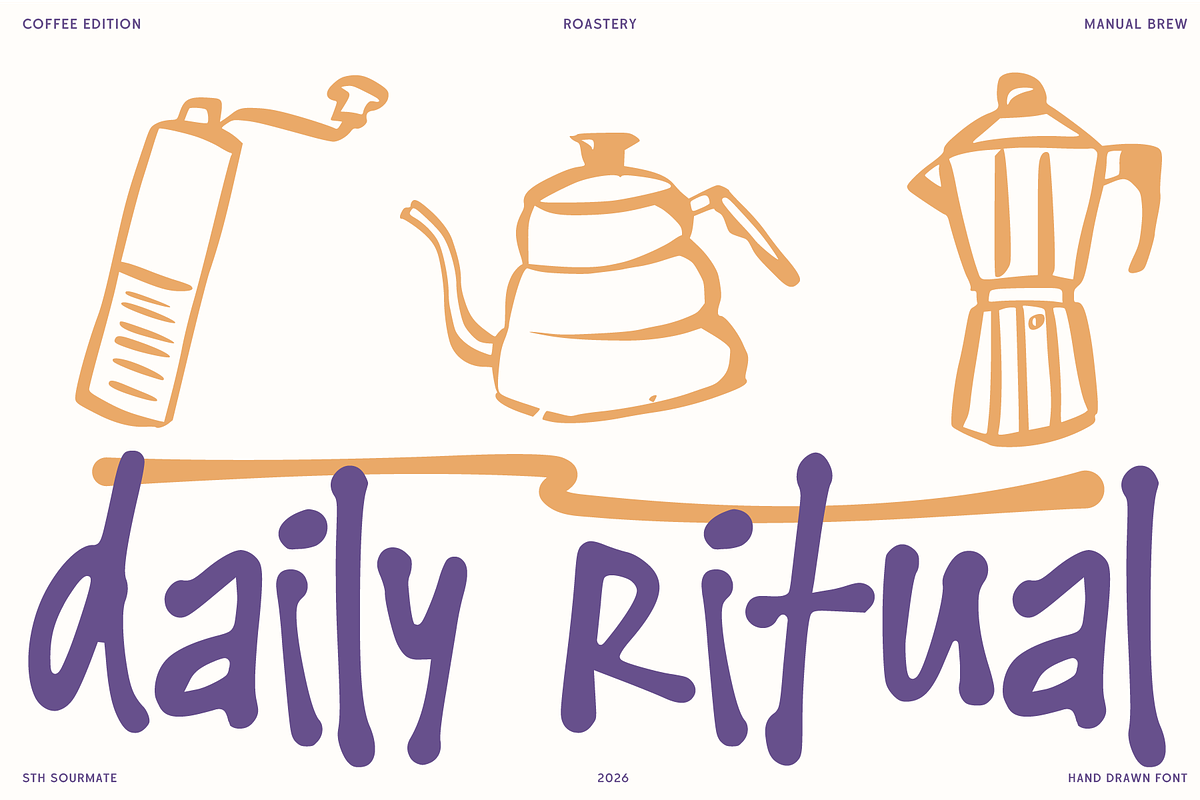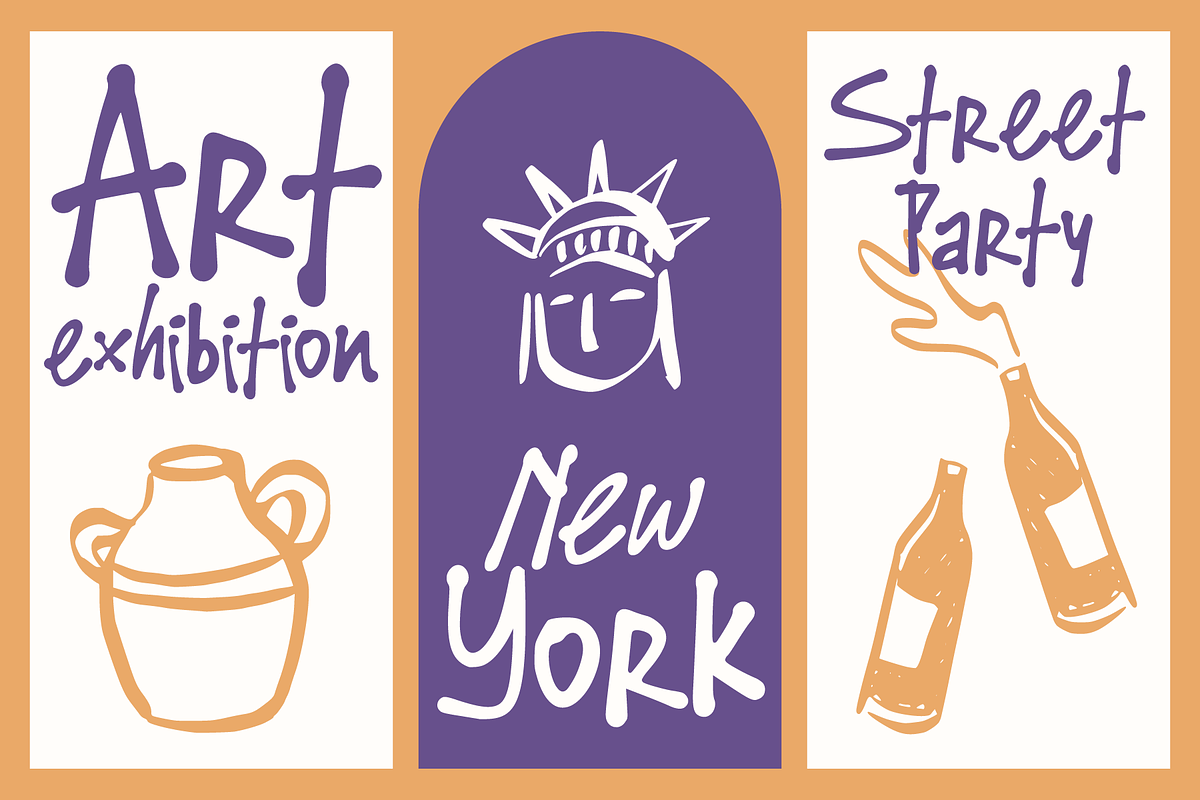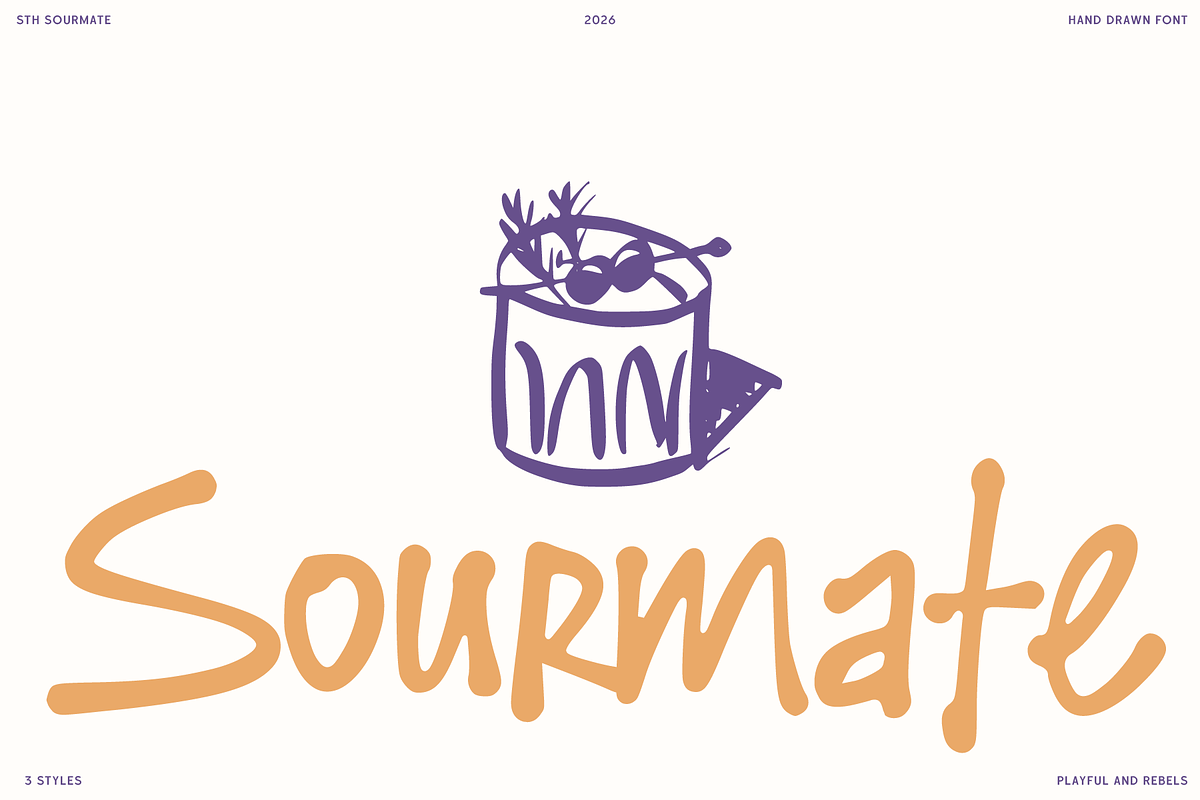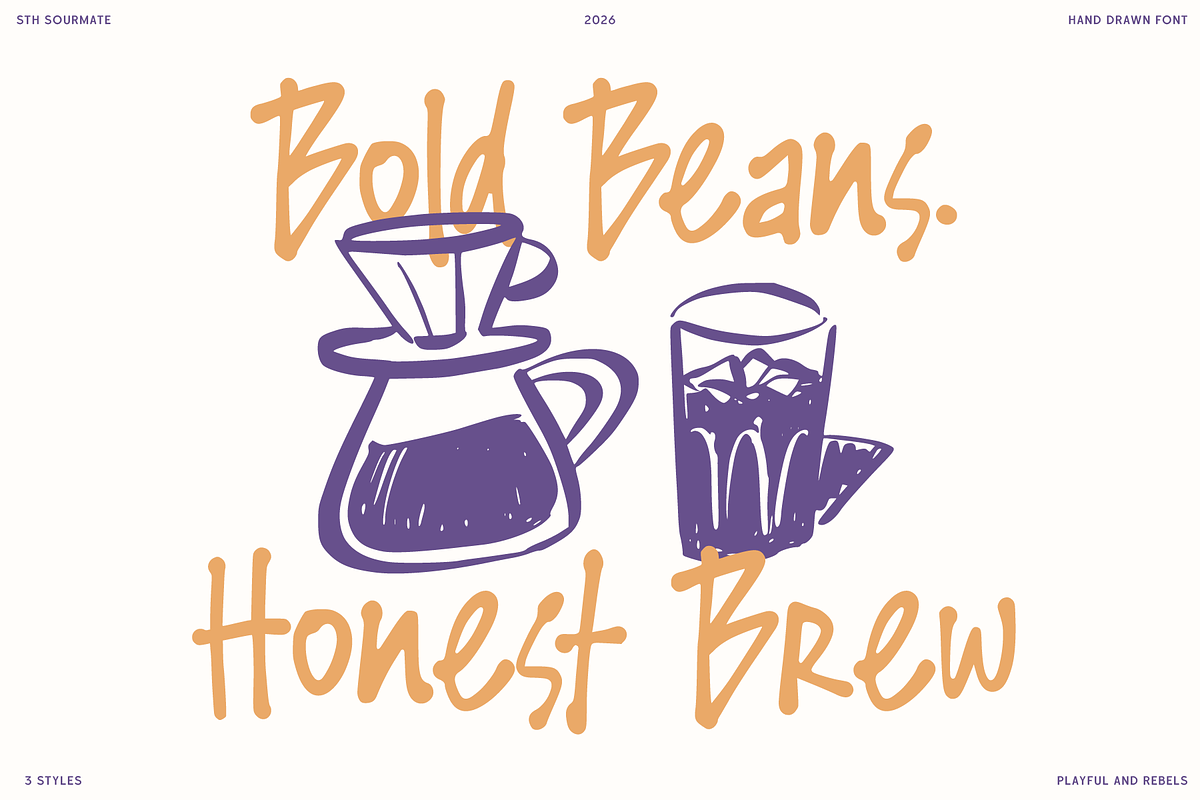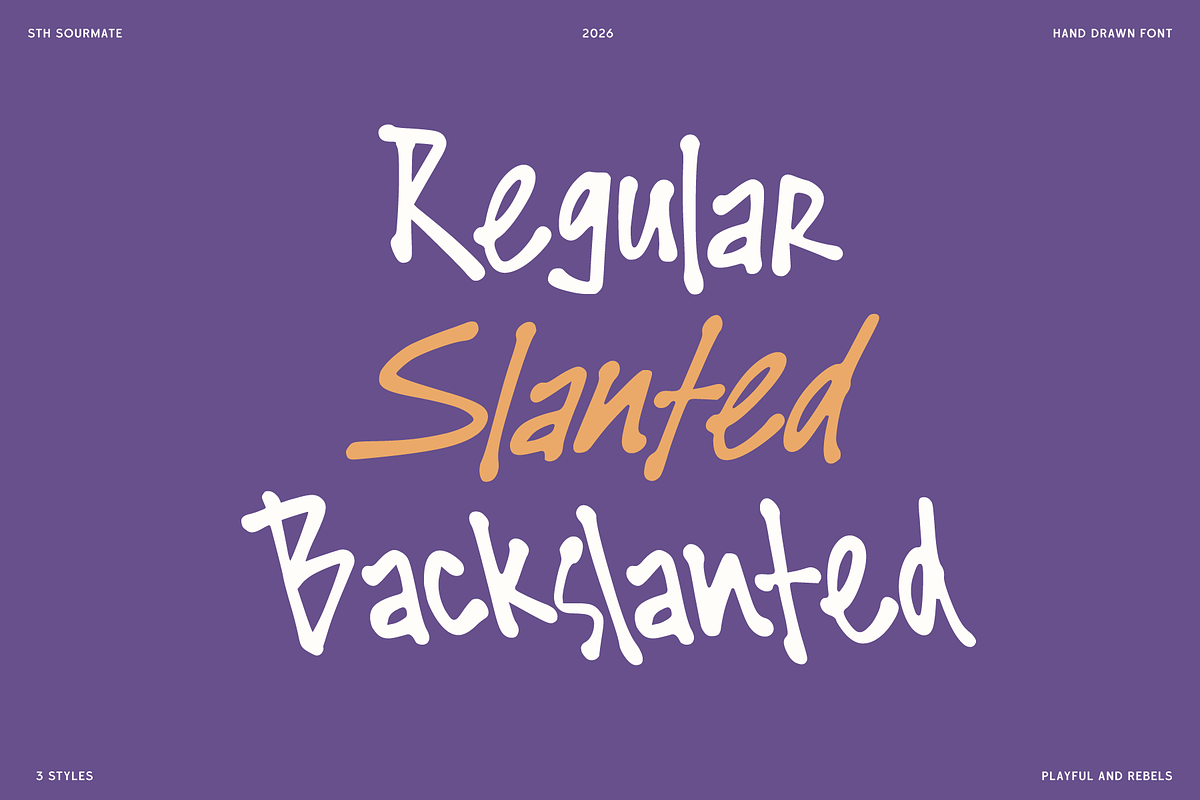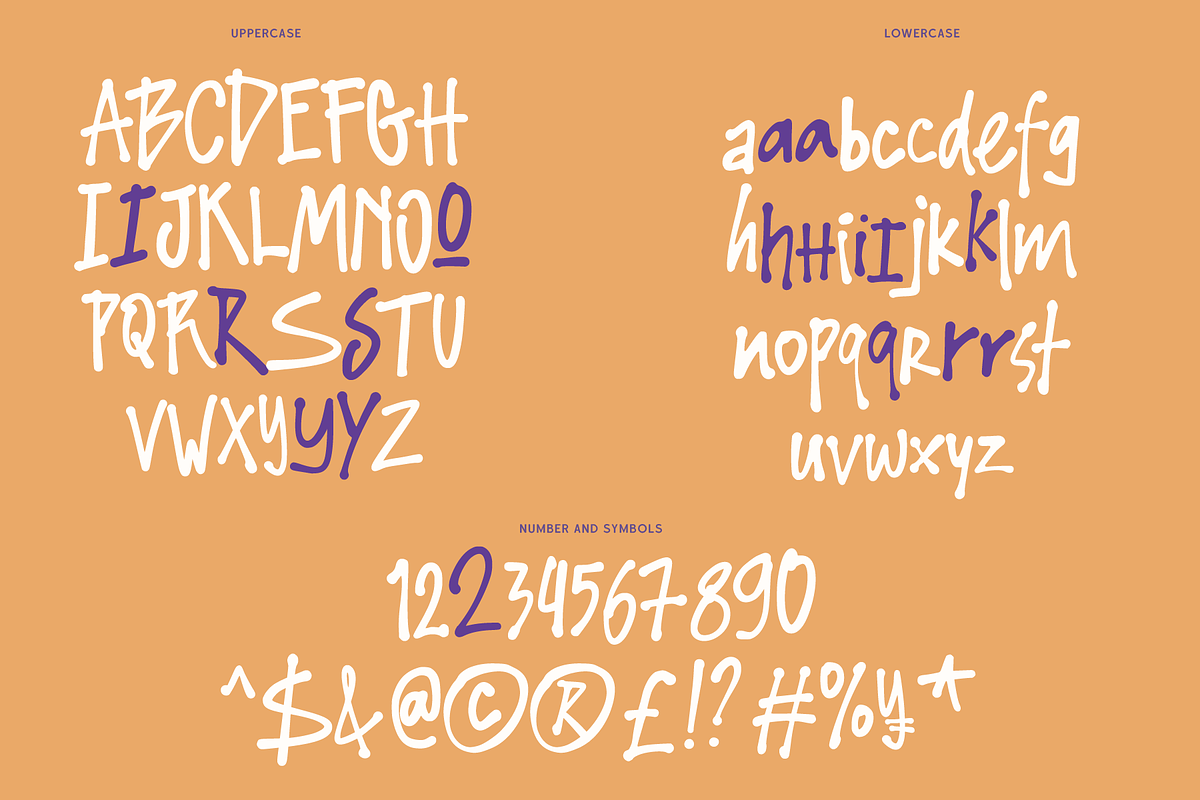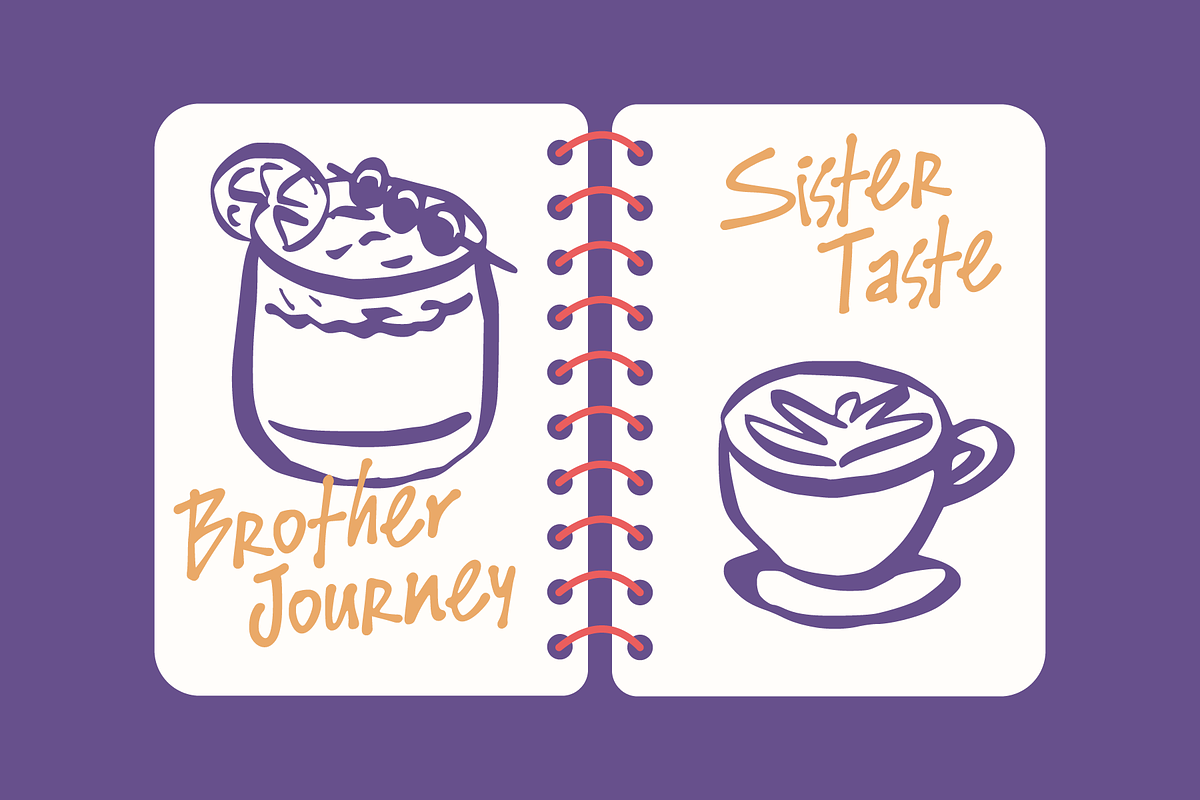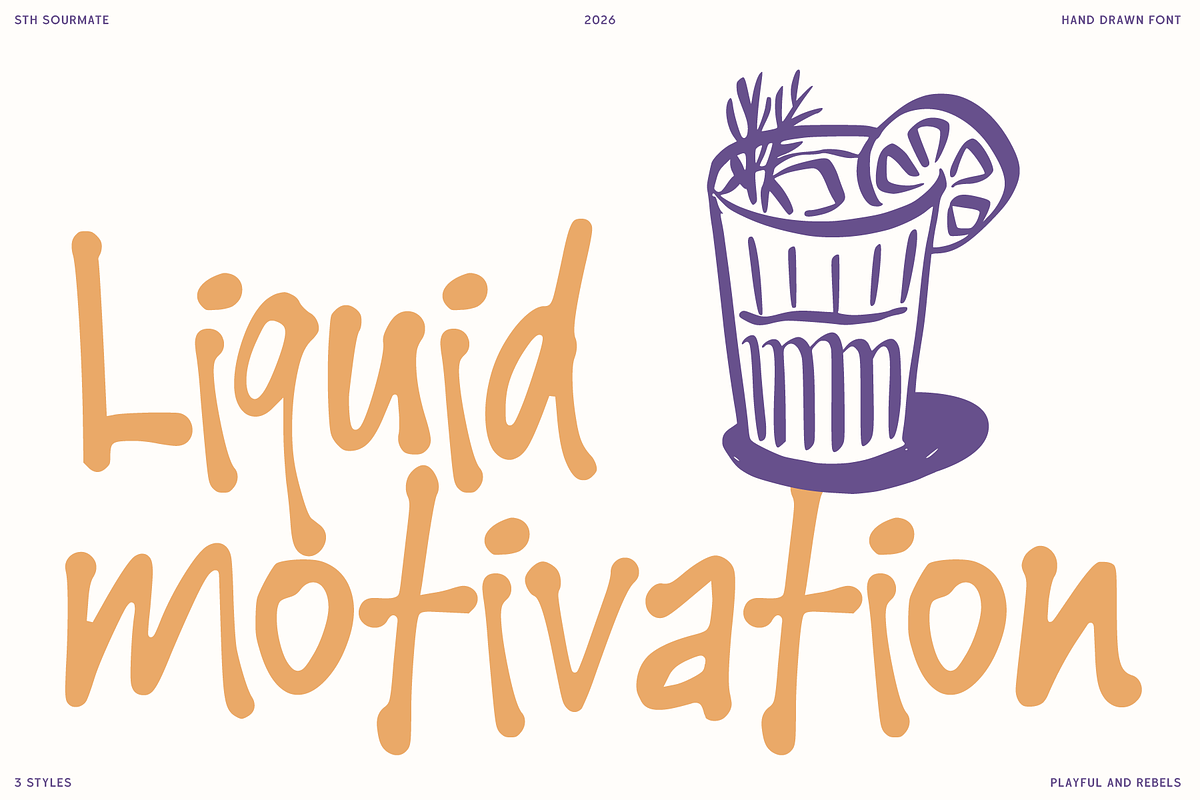
STH Sourmate
STH Sourmate is a playful hand-drawn font with a bold, expressive personality. Inspired by casual sketches and friendly food illustrations. This font brings a warm, fun, and slightly rebellious vibe to your designs. This font comes with 3 styles regular, slanted and backslanted.
With its organic strokes and imperfect charm, STH Sourmate feels human, spontaneous, and approachable perfect for projects that want to stand out without feeling stiff or overly polished.
This font works beautifully for branding, packaging, posters, menus, social media graphics, children’s projects, lifestyle products, and creative exhibitions. Whether you’re designing for food & beverage, handmade brands, or cheerful visual storytelling, STH Sourmate adds instant character and joy.